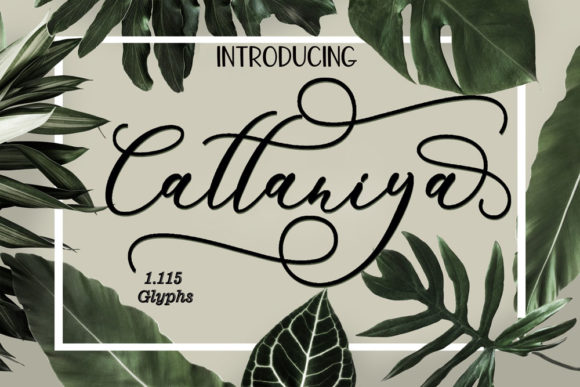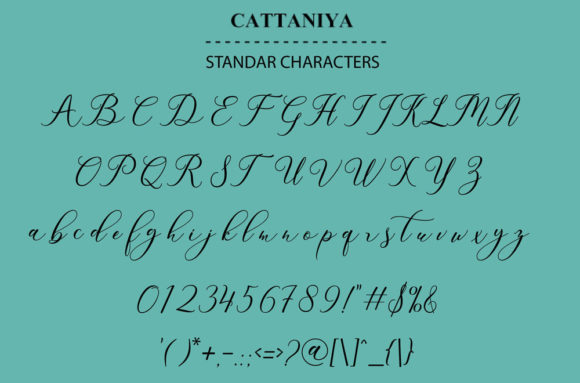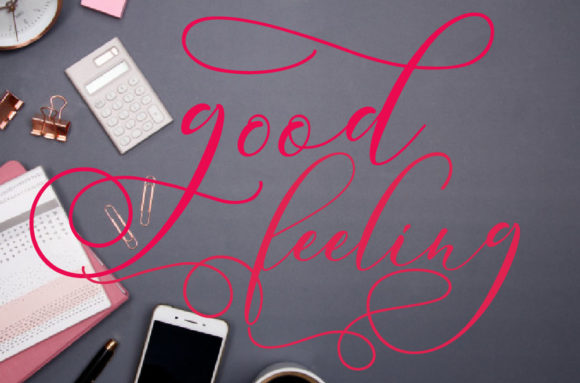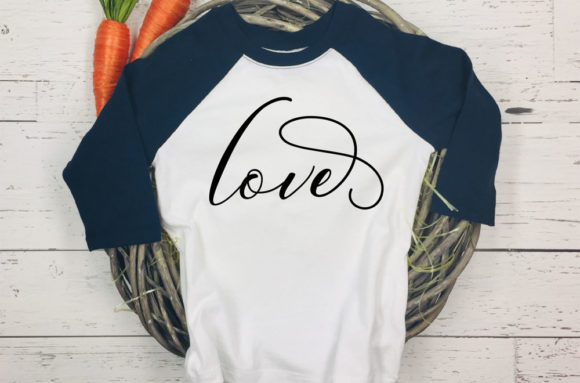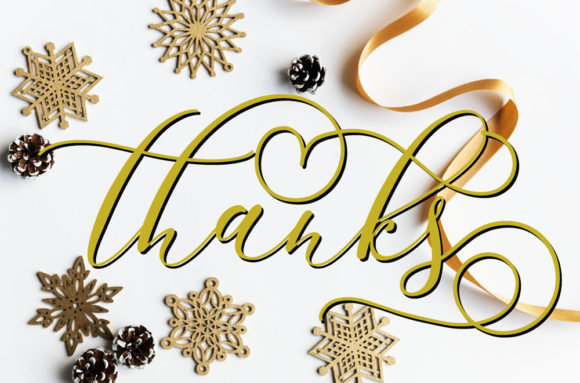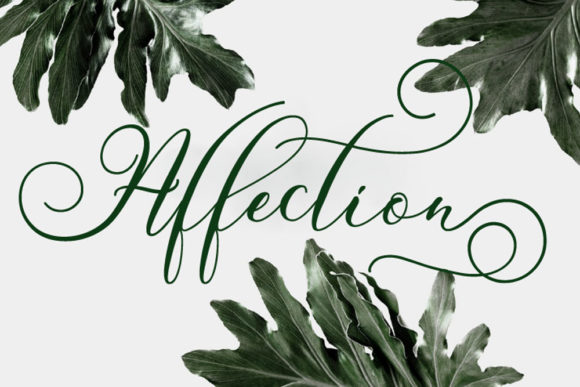
Cattaniya Font
About Cattaniya Font
The Cattaniya is a fresh handmade calligraphy font. It is suitable for greeting cards, branding materials, business card,
quotes, posters, and more!